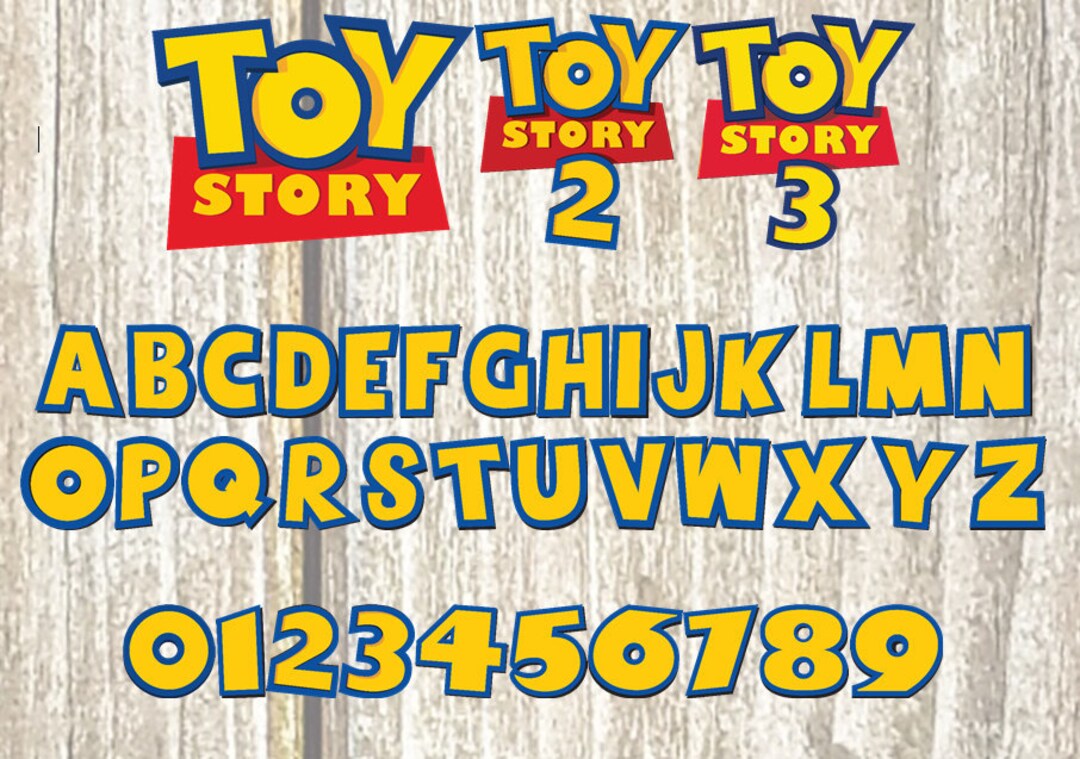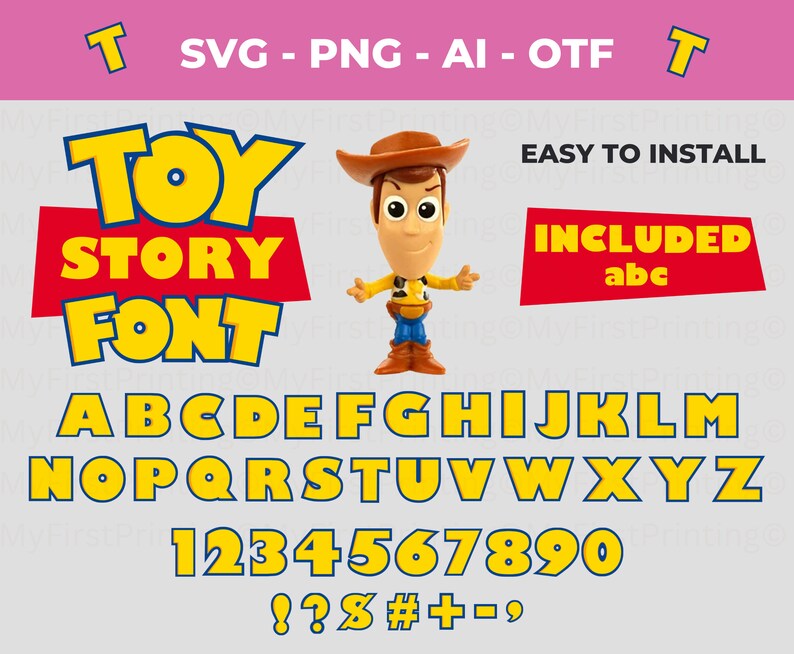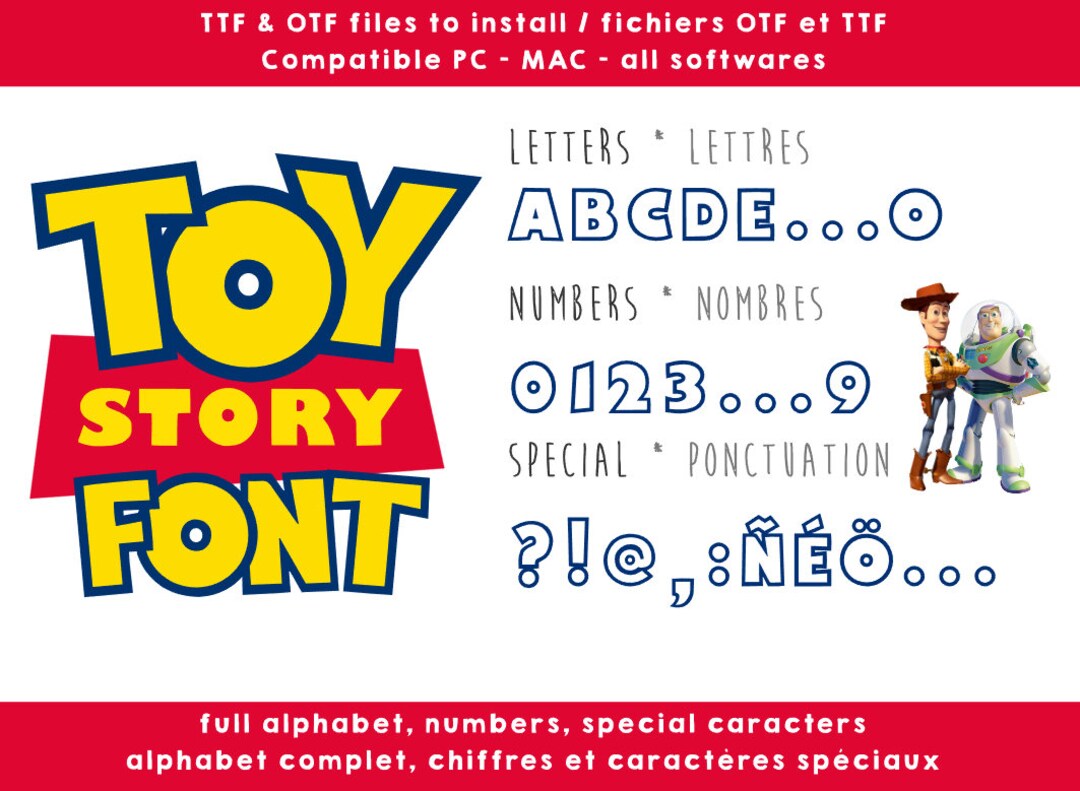
What Is Toy Story Font Called . Download the toy story typeface from the 1995 disney film and use it for personal and commercial projects. The toy story logo was designed using two distinct styles of lettering. The film’s success spawned three sequels: This font is inspired by the iconic characters and logo. Learn about the fonts used in the logo and download. Toy story 2 in 1999, toy story 3 in 2010, and toy story 4 in 2019. The “story” portion likely used gill sans bold as its font; Find out how to create toy story themed projects with this font on windows, mac,. Today we present the toy story typeface from walt disney’s 1995 american adventure film toy story, released november. Learn how to download, install and use the peace sans font, a free font that resembles the toy story logo. I've tried gill sans ultra bold and it seemed to fit the toy story logo perfectly for me. Create text graphics with toy story font, inspired by the logo of the disney animated film.
The toy story logo was designed using two distinct styles of lettering. Learn how to download, install and use the peace sans font, a free font that resembles the toy story logo. Toy story 2 in 1999, toy story 3 in 2010, and toy story 4 in 2019. Today we present the toy story typeface from walt disney’s 1995 american adventure film toy story, released november. Download the toy story typeface from the 1995 disney film and use it for personal and commercial projects. The film’s success spawned three sequels: The “story” portion likely used gill sans bold as its font; I've tried gill sans ultra bold and it seemed to fit the toy story logo perfectly for me. Create text graphics with toy story font, inspired by the logo of the disney animated film. Learn about the fonts used in the logo and download.
What Is Toy Story Font Called I've tried gill sans ultra bold and it seemed to fit the toy story logo perfectly for me. Learn how to download, install and use the peace sans font, a free font that resembles the toy story logo. The film’s success spawned three sequels: I've tried gill sans ultra bold and it seemed to fit the toy story logo perfectly for me. This font is inspired by the iconic characters and logo. Create text graphics with toy story font, inspired by the logo of the disney animated film. The “story” portion likely used gill sans bold as its font; Download the toy story typeface from the 1995 disney film and use it for personal and commercial projects. Toy story 2 in 1999, toy story 3 in 2010, and toy story 4 in 2019. Find out how to create toy story themed projects with this font on windows, mac,. Today we present the toy story typeface from walt disney’s 1995 american adventure film toy story, released november. The toy story logo was designed using two distinct styles of lettering. Learn about the fonts used in the logo and download.
Toy Story Alphabet Svg Toy Story Fonts Svg Toy Story Svg Etsy What Is Toy Story Font Called Toy story 2 in 1999, toy story 3 in 2010, and toy story 4 in 2019. The film’s success spawned three sequels: Today we present the toy story typeface from walt disney’s 1995 american adventure film toy story, released november. Create text graphics with toy story font, inspired by the logo of the disney animated film. Learn how to download,. What Is Toy Story Font Called.
Toy Story Font SVG, Toy Story Svg, Toy Story Font, Cricut, Silhouette What Is Toy Story Font Called Download the toy story typeface from the 1995 disney film and use it for personal and commercial projects. Create text graphics with toy story font, inspired by the logo of the disney animated film. The toy story logo was designed using two distinct styles of lettering. Learn about the fonts used in the logo and download. Toy story 2 in. What Is Toy Story Font Called.
Free Toy Story Font Ad Get Access To Our Ever Growing Library Of Fonts What Is Toy Story Font Called The film’s success spawned three sequels: This font is inspired by the iconic characters and logo. I've tried gill sans ultra bold and it seemed to fit the toy story logo perfectly for me. Today we present the toy story typeface from walt disney’s 1995 american adventure film toy story, released november. Find out how to create toy story themed. What Is Toy Story Font Called.
Cartoon Font Toy Story Font OTF SVG Layered Toy Story Font Etsy What Is Toy Story Font Called Learn about the fonts used in the logo and download. Create text graphics with toy story font, inspired by the logo of the disney animated film. The “story” portion likely used gill sans bold as its font; Learn how to download, install and use the peace sans font, a free font that resembles the toy story logo. Toy story 2. What Is Toy Story Font Called.
toy story font and numbers with buzz lightyear, woody the spaceman from What Is Toy Story Font Called Find out how to create toy story themed projects with this font on windows, mac,. Create text graphics with toy story font, inspired by the logo of the disney animated film. Toy story 2 in 1999, toy story 3 in 2010, and toy story 4 in 2019. Learn how to download, install and use the peace sans font, a free. What Is Toy Story Font Called.
Toy Story Font SVG, PNG, DXF What Is Toy Story Font Called The toy story logo was designed using two distinct styles of lettering. Create text graphics with toy story font, inspired by the logo of the disney animated film. Learn about the fonts used in the logo and download. I've tried gill sans ultra bold and it seemed to fit the toy story logo perfectly for me. Learn how to download,. What Is Toy Story Font Called.
Toy Story FONT SVG, Toy Story Alphabet Svg, Toy Story What Is Toy Story Font Called Learn how to download, install and use the peace sans font, a free font that resembles the toy story logo. Toy story 2 in 1999, toy story 3 in 2010, and toy story 4 in 2019. The “story” portion likely used gill sans bold as its font; Today we present the toy story typeface from walt disney’s 1995 american adventure. What Is Toy Story Font Called.
Toy Story FONT SVG, Instant Download, Toy Story Alphabet SVG, Toy Story What Is Toy Story Font Called Learn about the fonts used in the logo and download. Create text graphics with toy story font, inspired by the logo of the disney animated film. I've tried gill sans ultra bold and it seemed to fit the toy story logo perfectly for me. Toy story 2 in 1999, toy story 3 in 2010, and toy story 4 in 2019.. What Is Toy Story Font Called.
Toy Story Font Real Ttf to Install Compatible PC and Mac Instant What Is Toy Story Font Called Find out how to create toy story themed projects with this font on windows, mac,. Download the toy story typeface from the 1995 disney film and use it for personal and commercial projects. Today we present the toy story typeface from walt disney’s 1995 american adventure film toy story, released november. I've tried gill sans ultra bold and it seemed. What Is Toy Story Font Called.